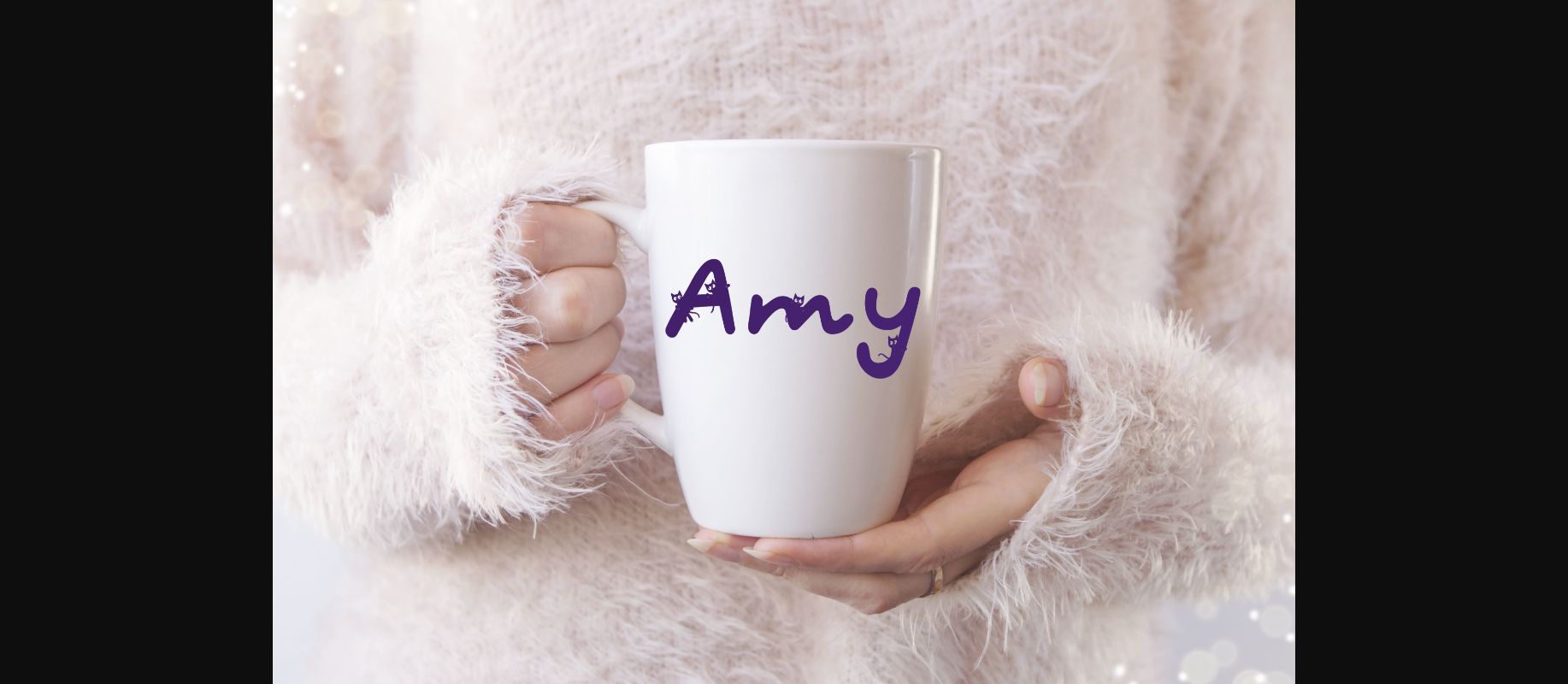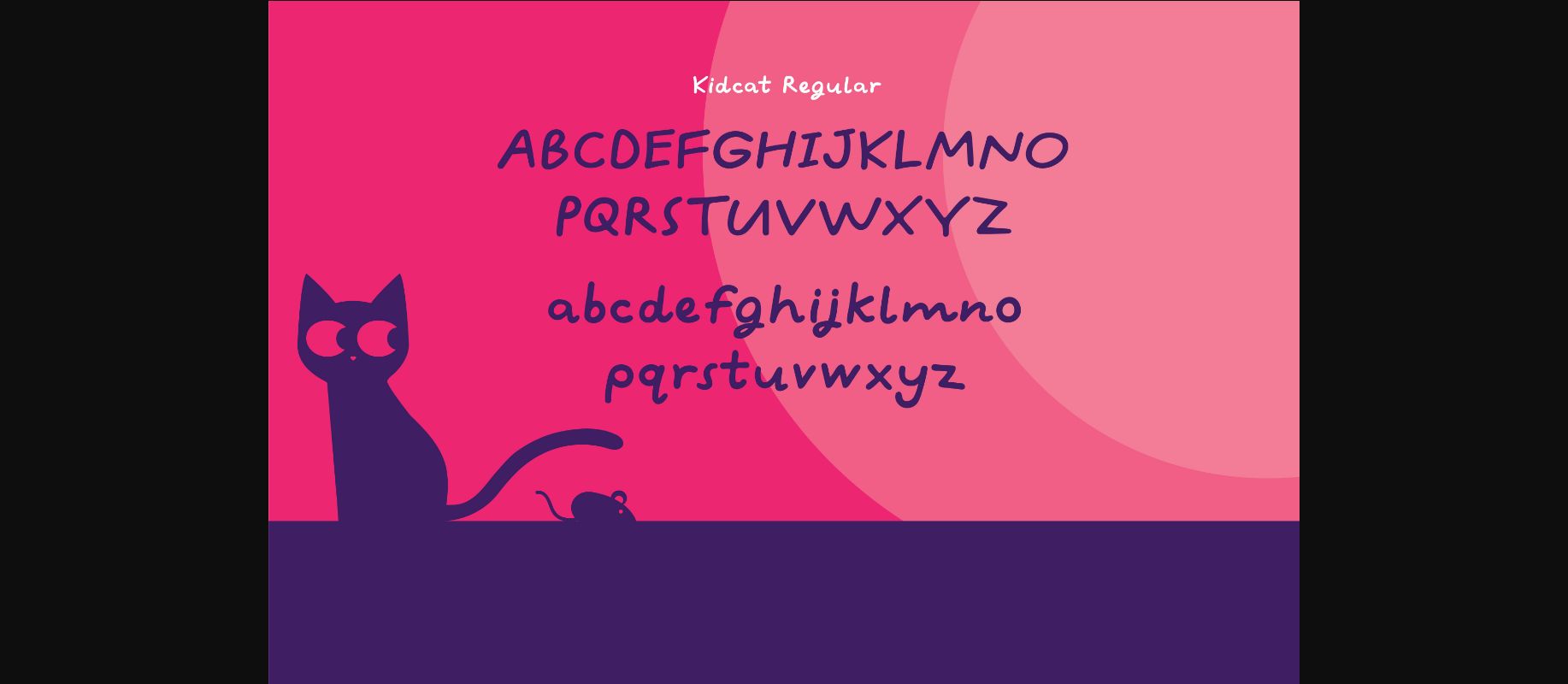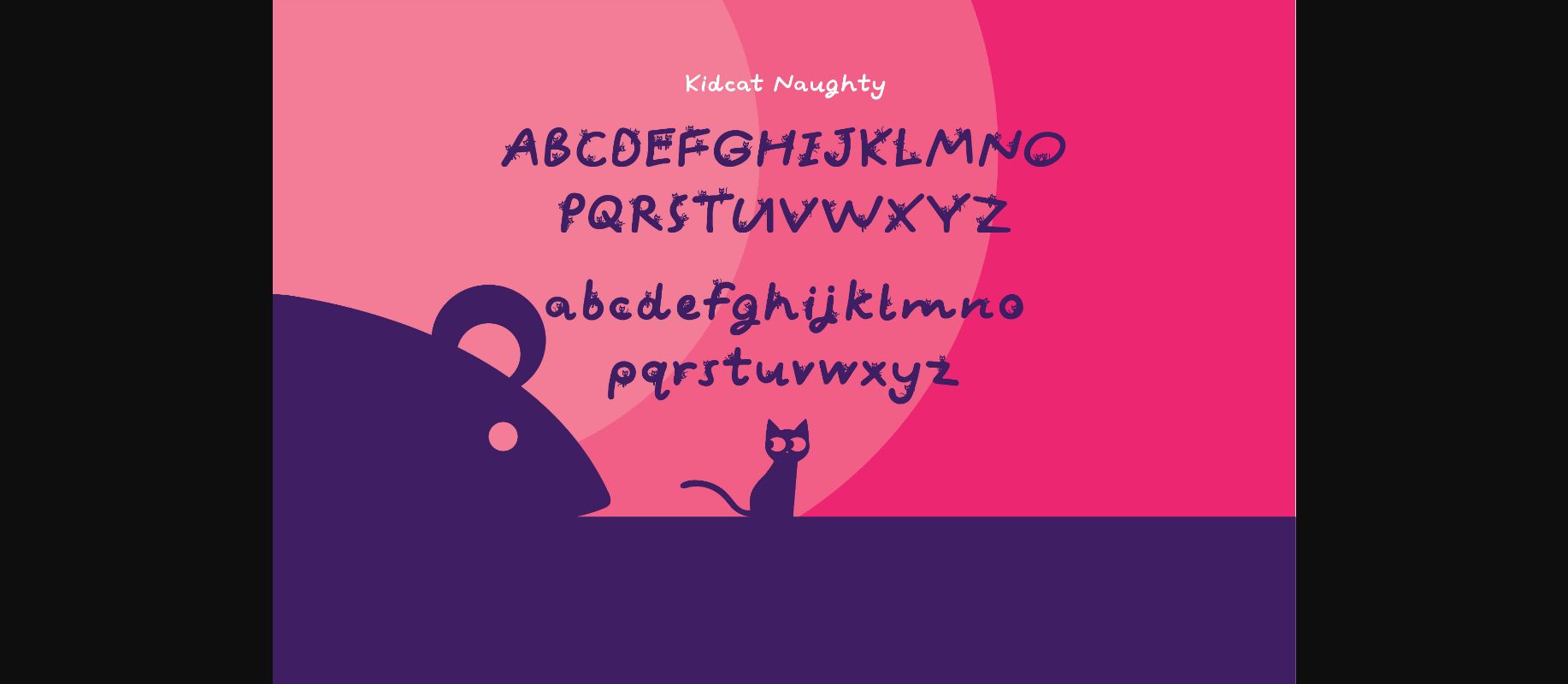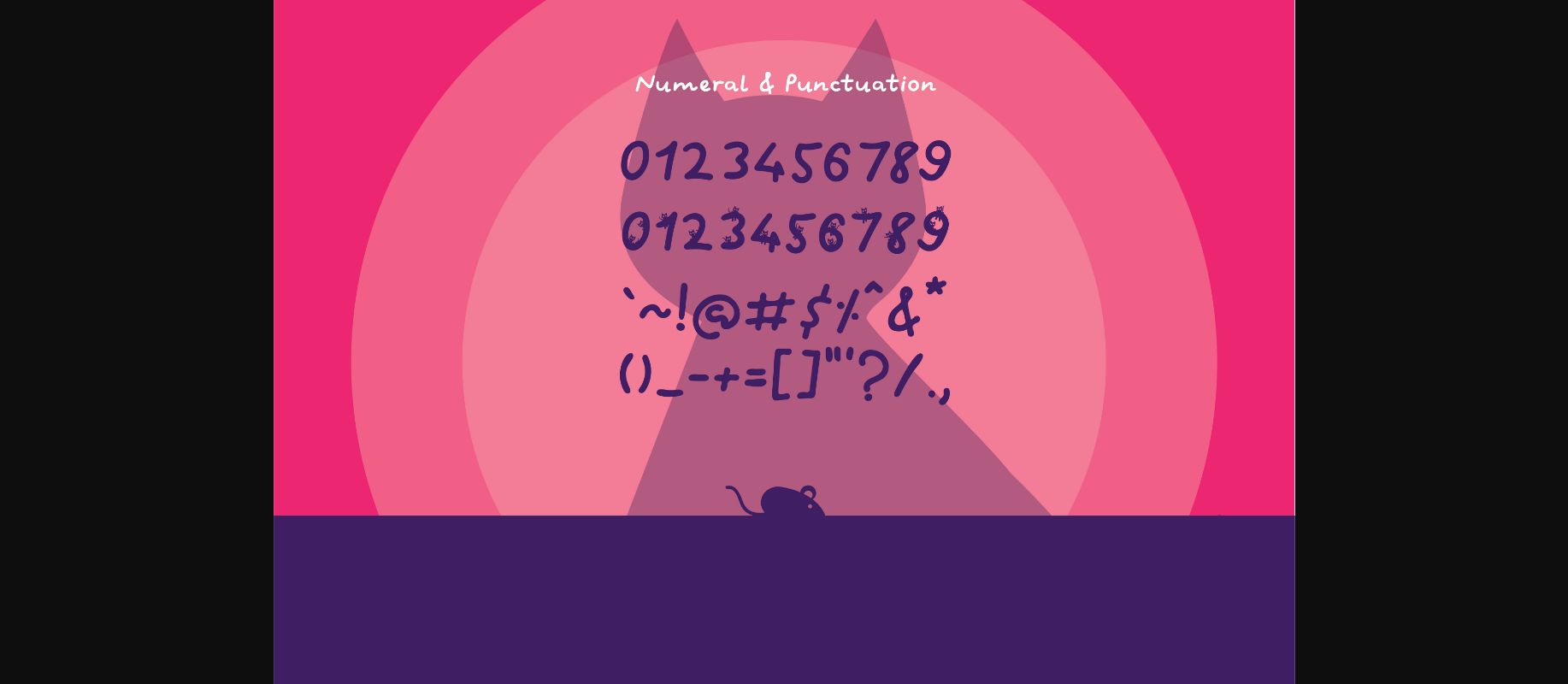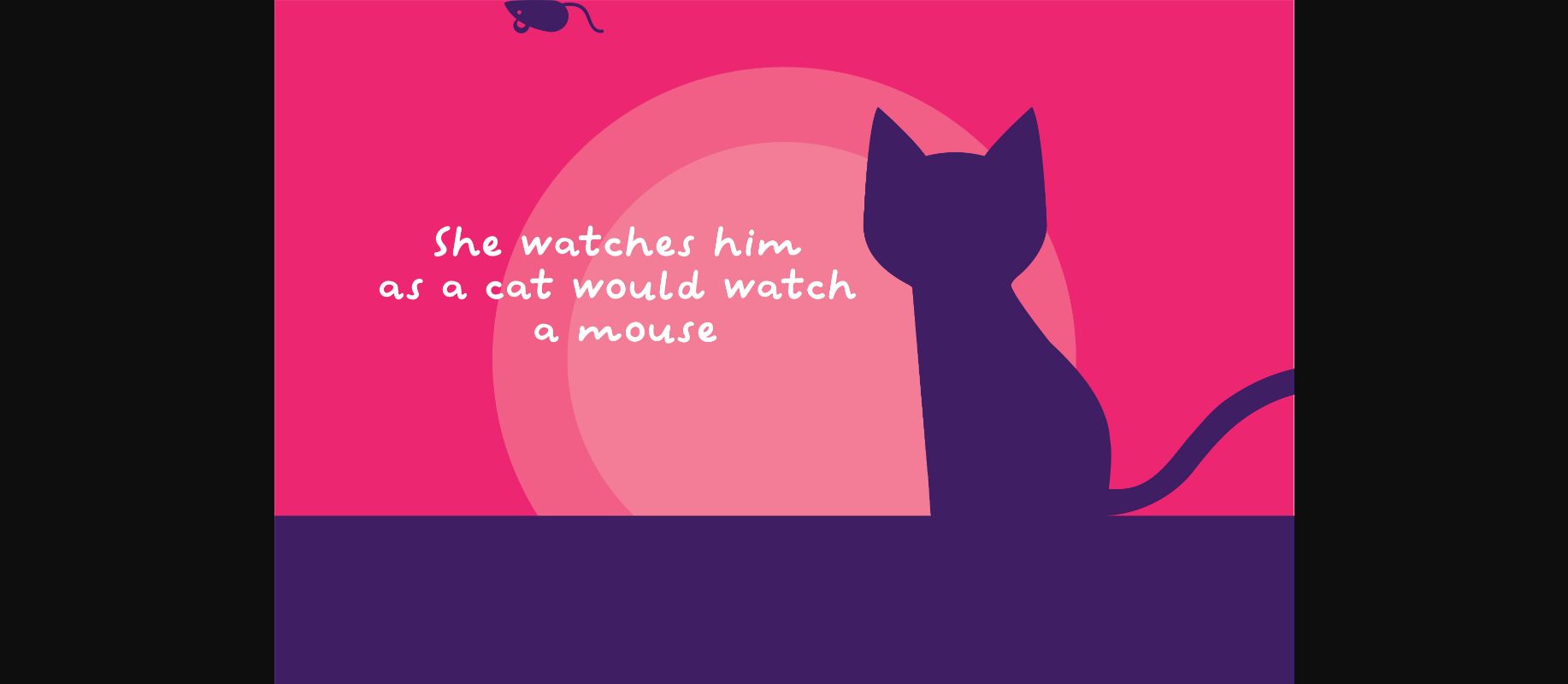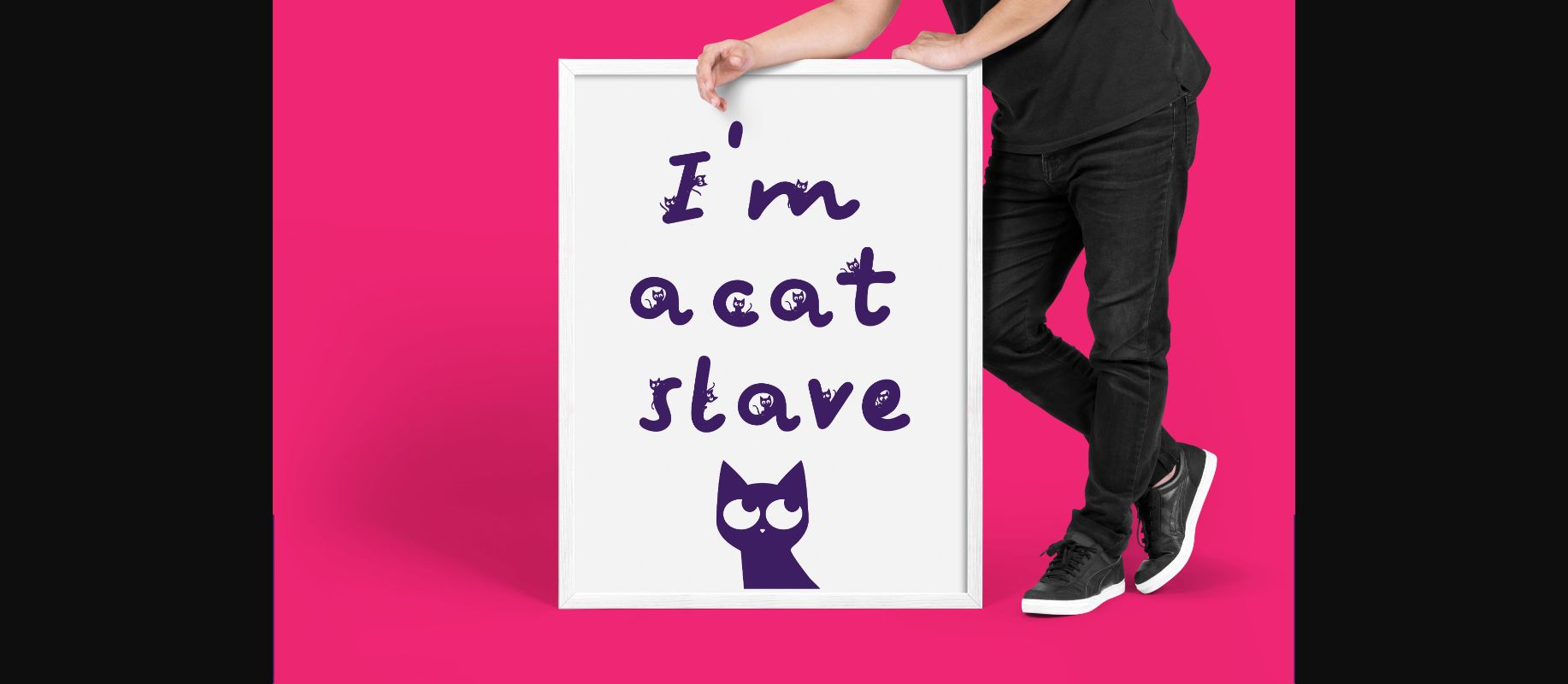
Kidcat Font
About Kidcat Font
Kidcat is a cute decorative font designed particularly for cat lovers. Add it confidently to your favorite creations and let yourself be amazed by the outcome generated.